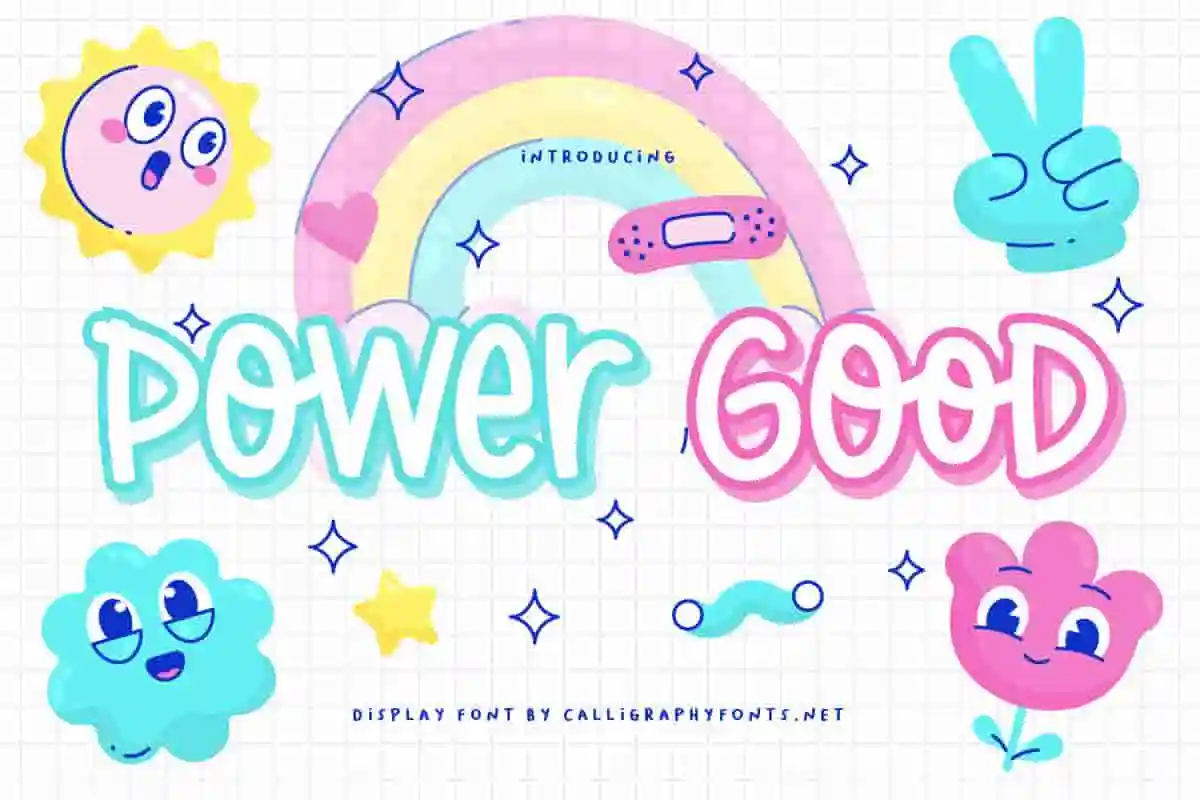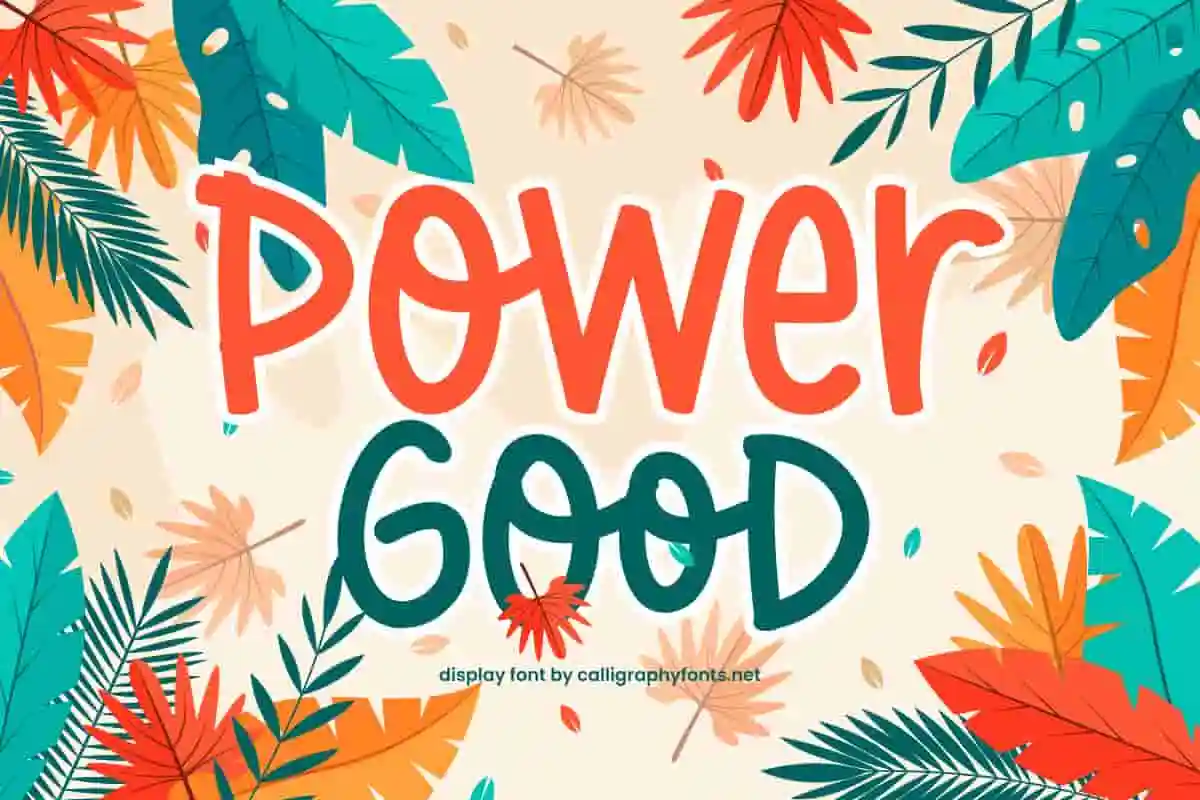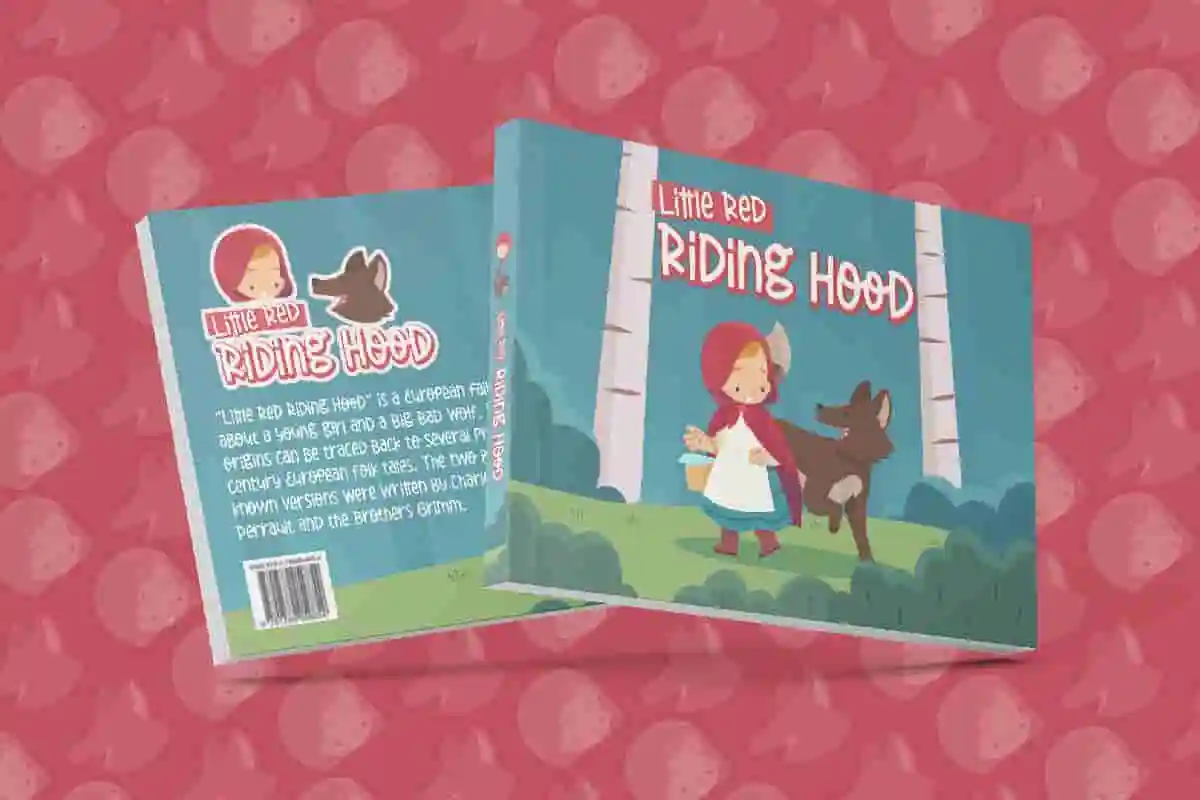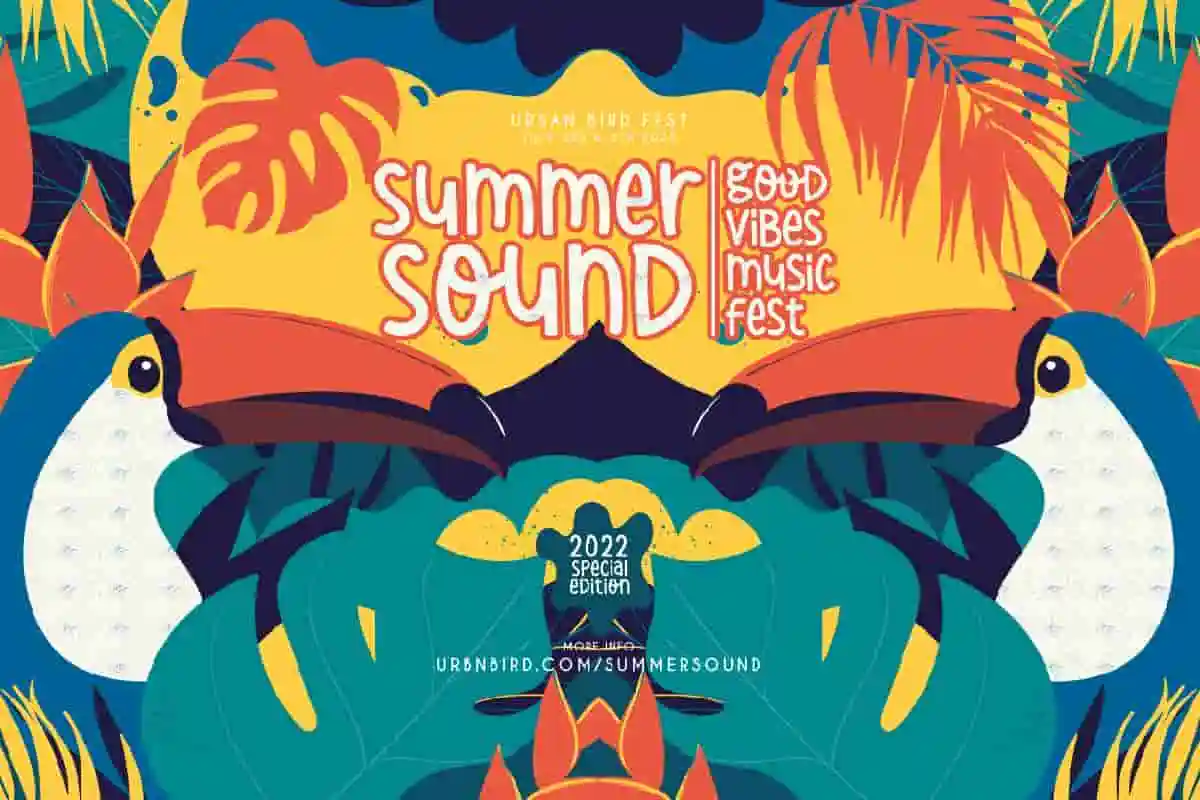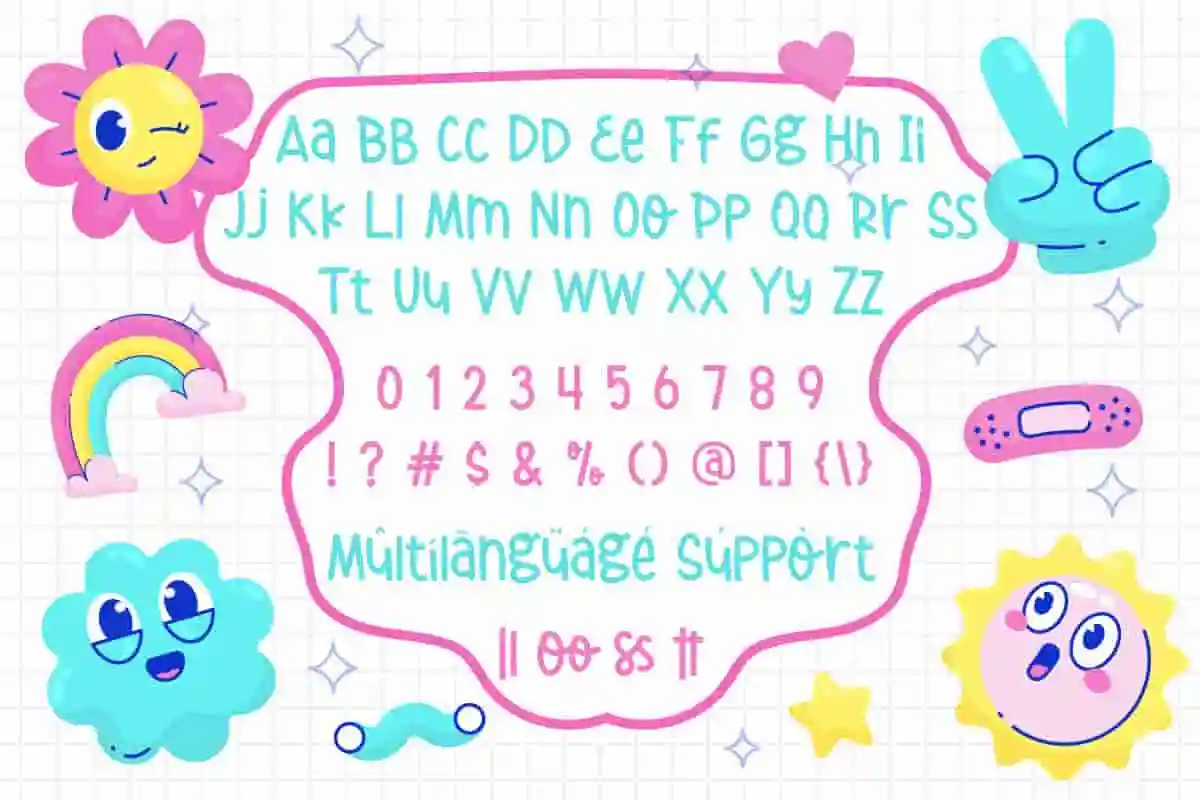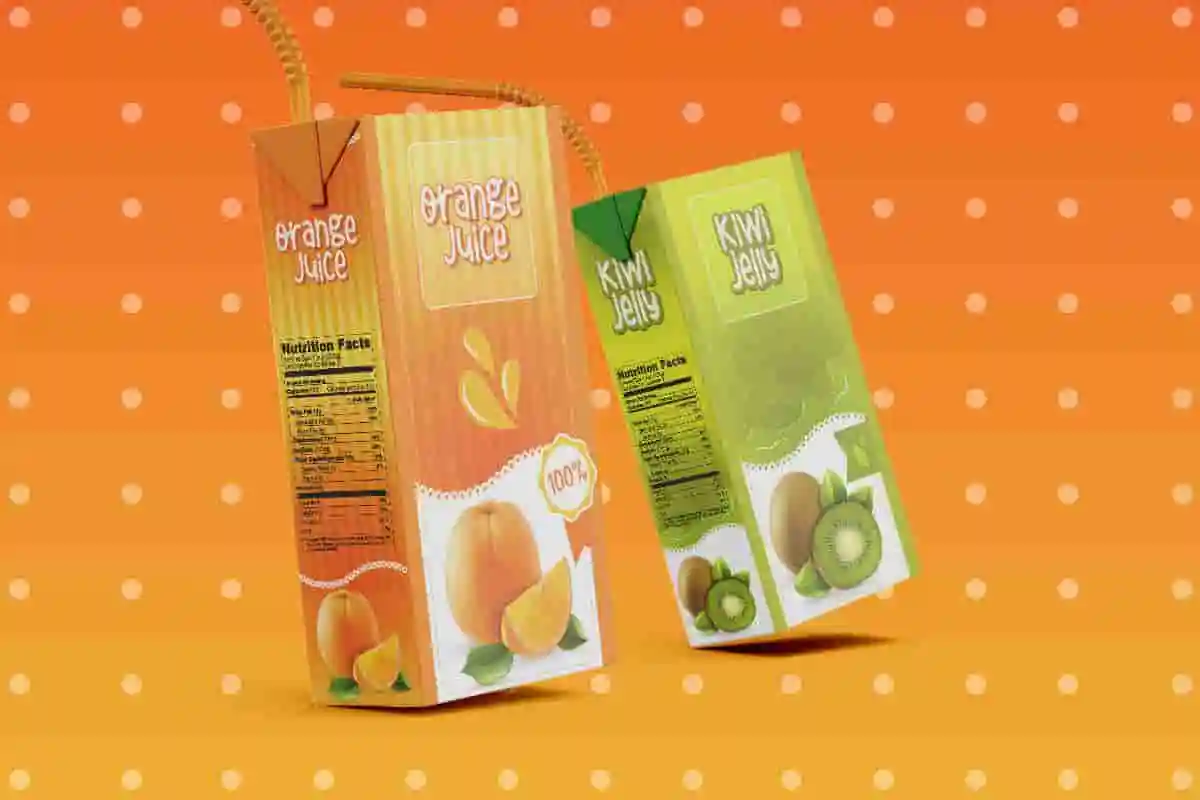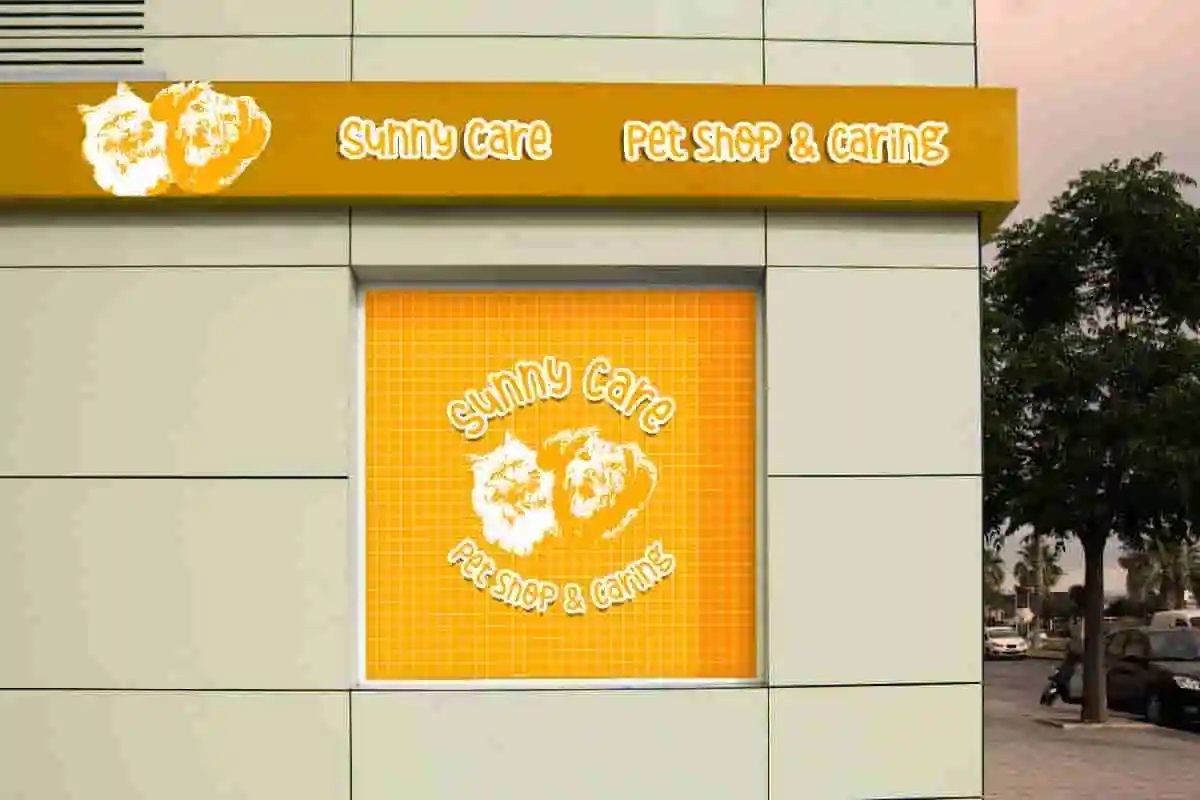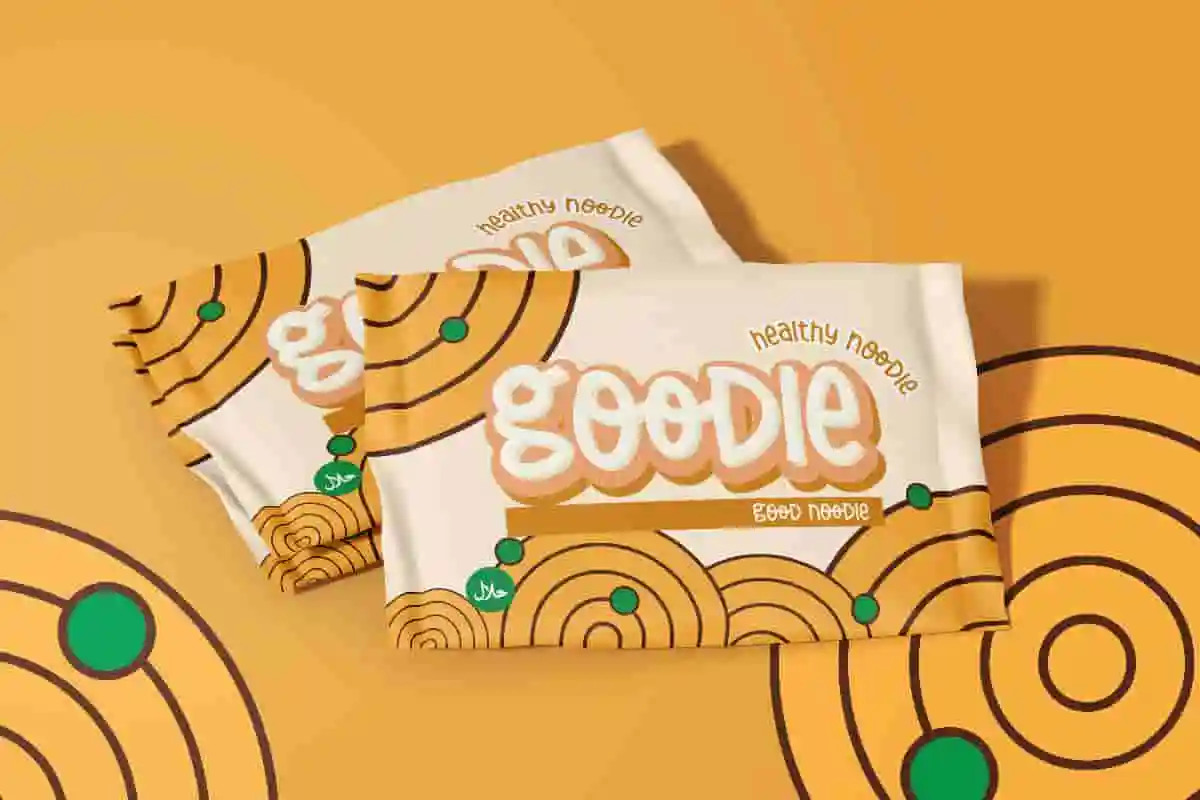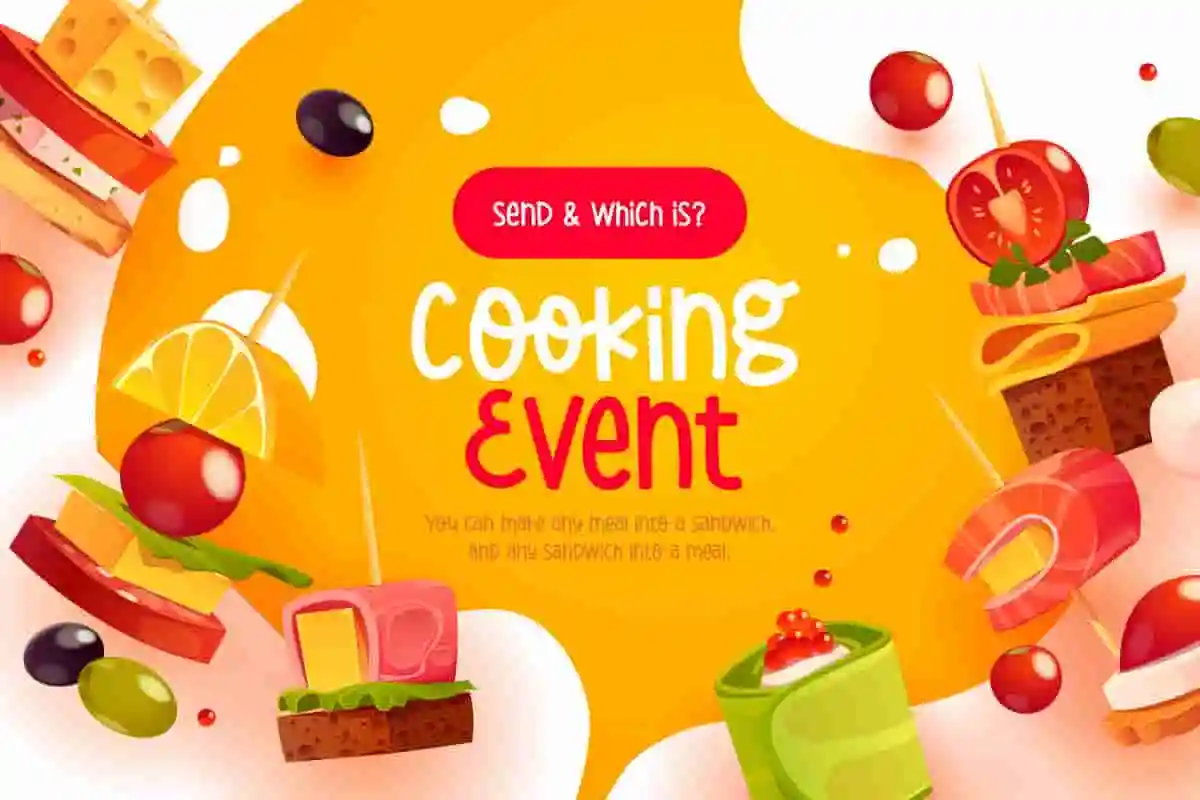
Power Good Font
Power Good Font is a playful display font which is inspired from summer vibes concepts. The font will be great for food and drinks brands, movies, pet shop, comic, birthday letters, or anything that requires a fresh and playful style!
Power Good Font is a playful display font with fresh look created by CalligraphyFonts, inspired by summer theme and will be ideal for your many industries such as : animator, culinary, drink brand, event, kids stuff, musician, pet shop, publishing, snacks, and anything that requires a cheerful style.
Power Good Font will be perfect for any creative projects such as : billboard, brochure, company sign, lunch box, packaging design, stationery, story book cover, title, website, and good for your secondary text font with script. This font has a perfect appearance and makes it easy for readers.
Power Good Font comes with a full set of Uppercase and Lowercase Basic Characters, Number, a large range of Punctuation and Symbol, and also supports multilingual characters. Ready to use both on Windows machine or Mac with simple installations. It’s tested to work well in the Adobe Apps (Illustrator, Adobe InDesign, Adobe Photoshop) CorelDraw, and others. PUA Encode Characters means you can access all the glyphs and other characters easily – Fully accessible without additional design software.